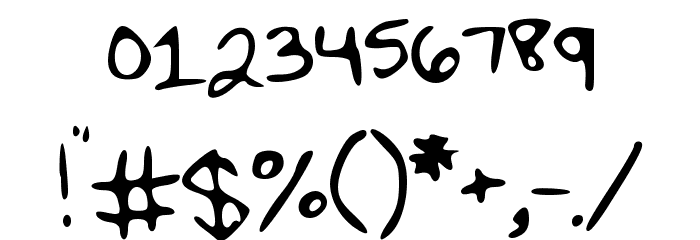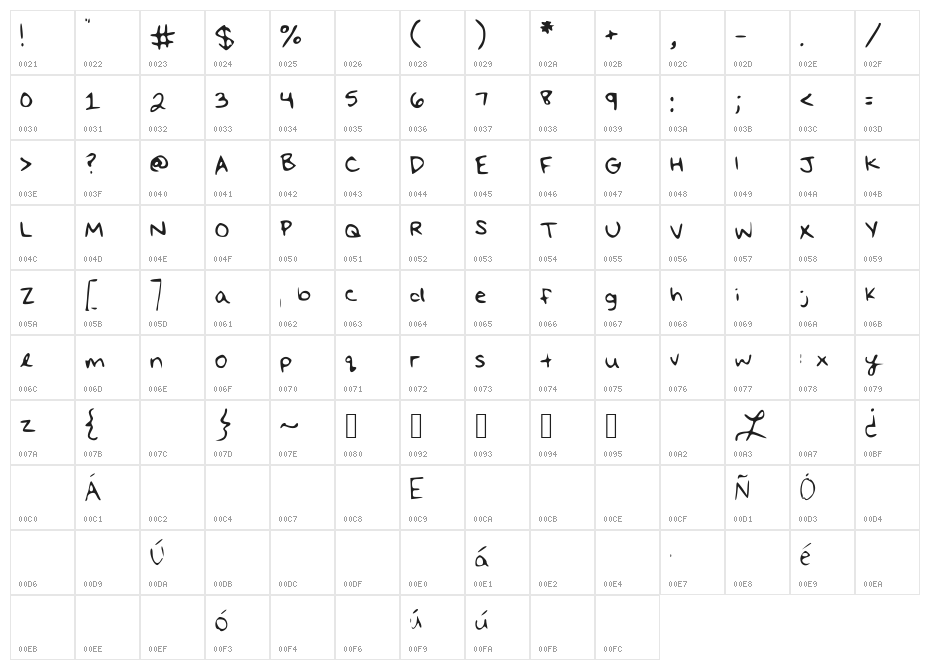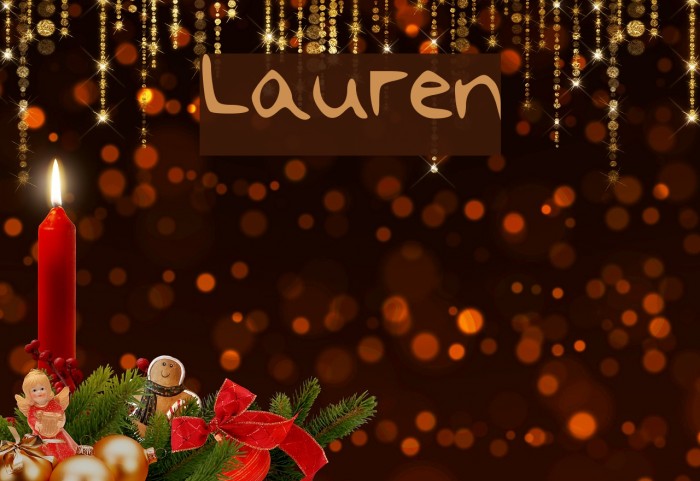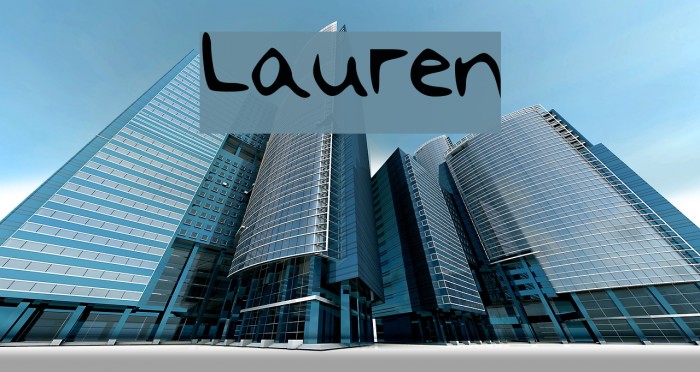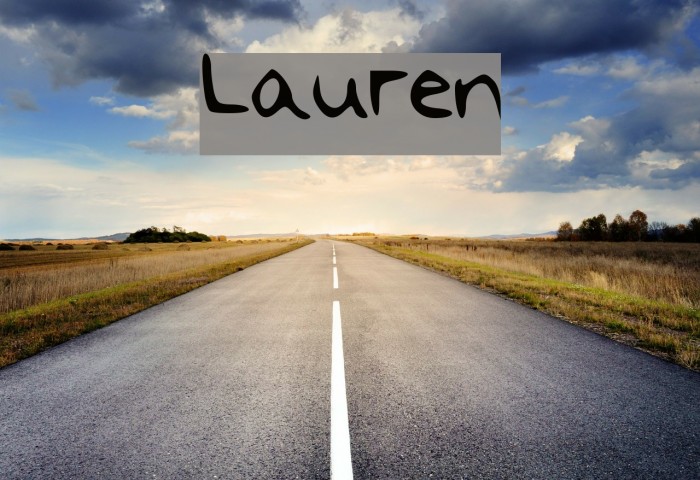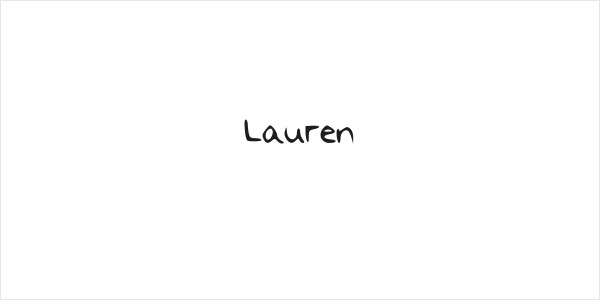
Lauren Font
Lauren Description
This font features a playful and casual handwritten style, characterized by its irregular strokes and organic flow. The letters are slightly slanted, giving a dynamic and informal appearance. The uppercase and lowercase letters maintain a consistent style, with rounded edges and varying stroke widths that add to its charm. The numerals and special characters follow the same whimsical design, making the font suitable for creative and informal projects. Its unique style is perfect for adding a personal touch to any design.
| Proposed Projects | Ideal for greeting cards, children's books, personal blogs, and creative branding. |